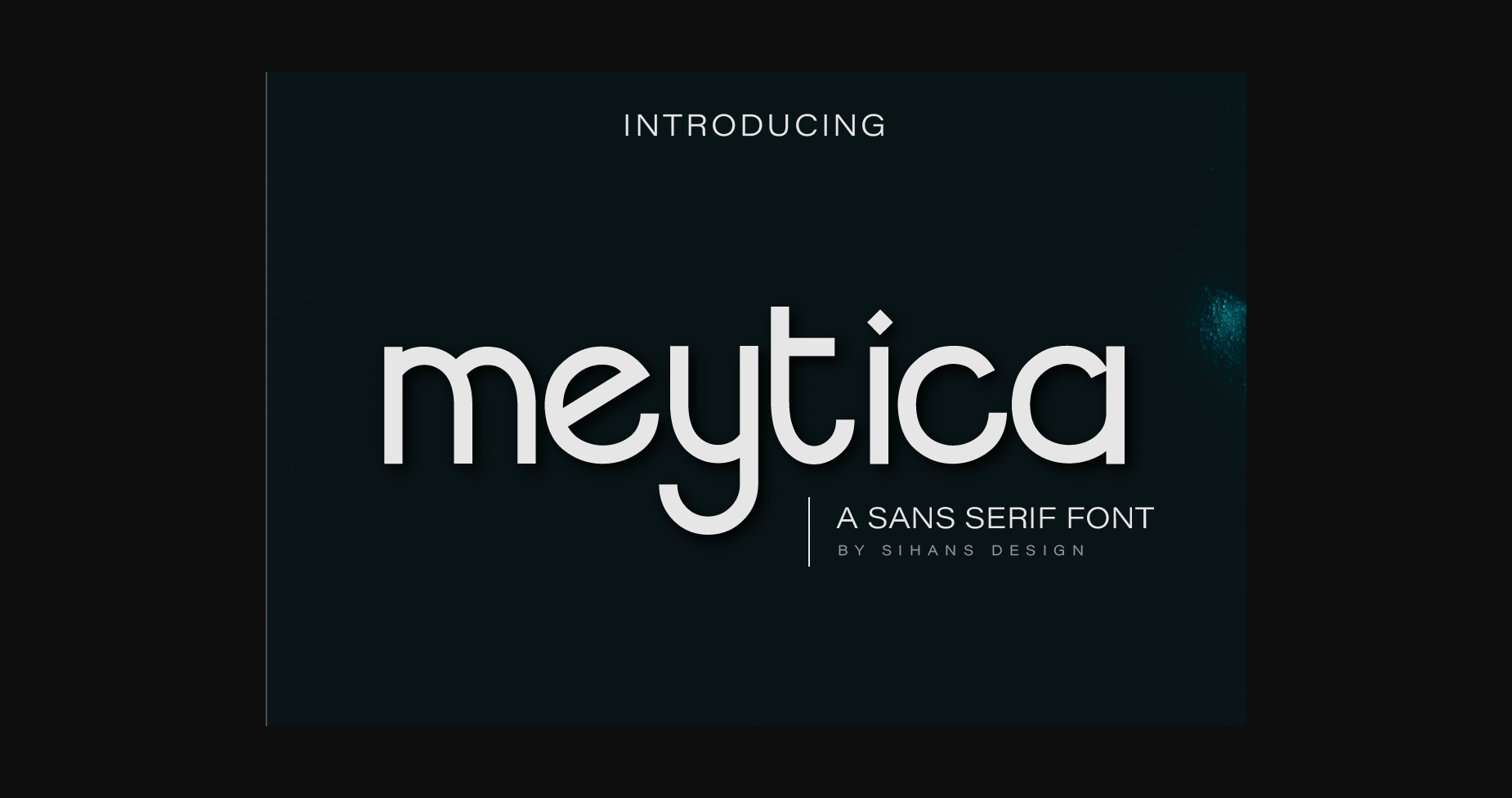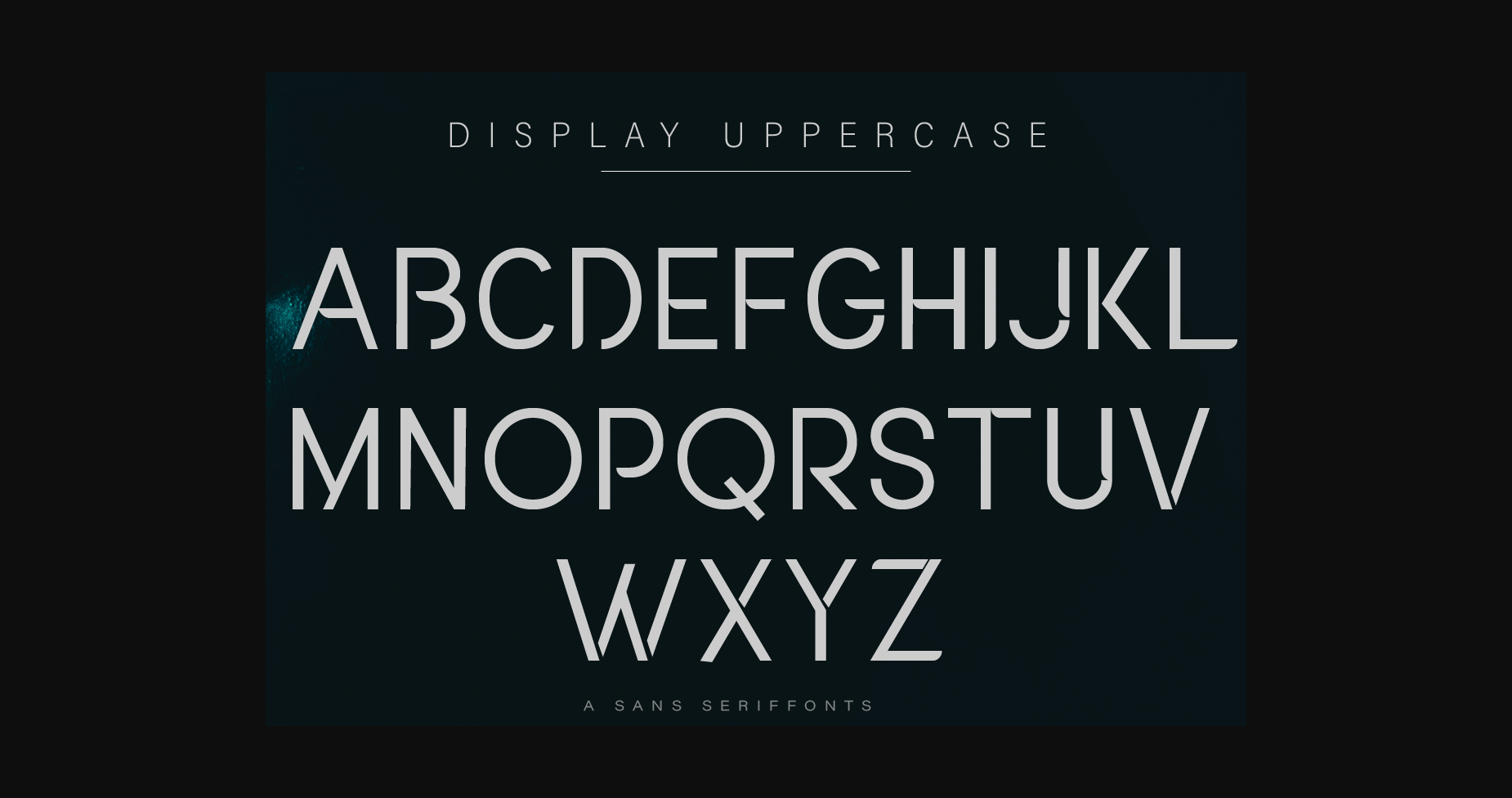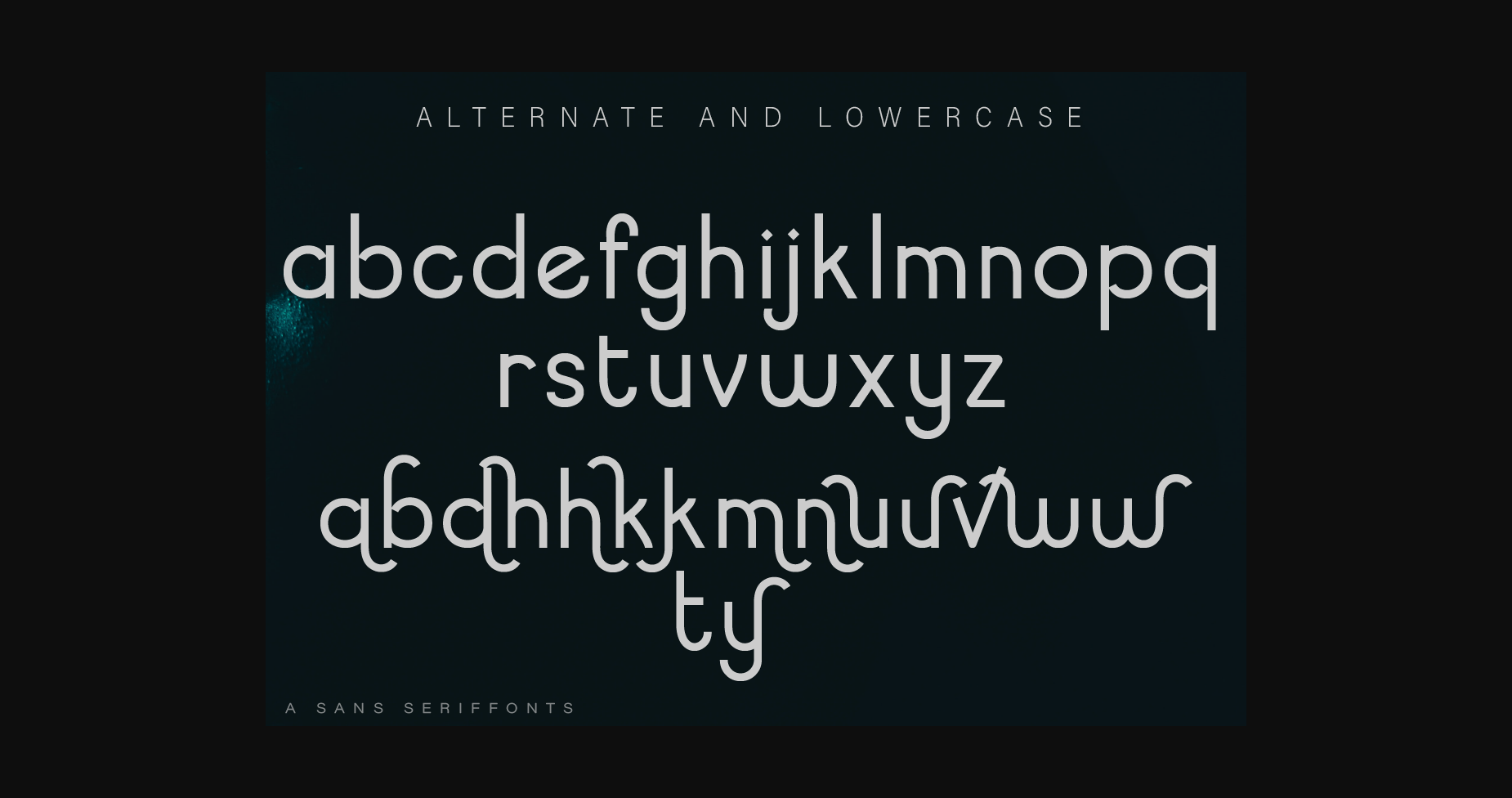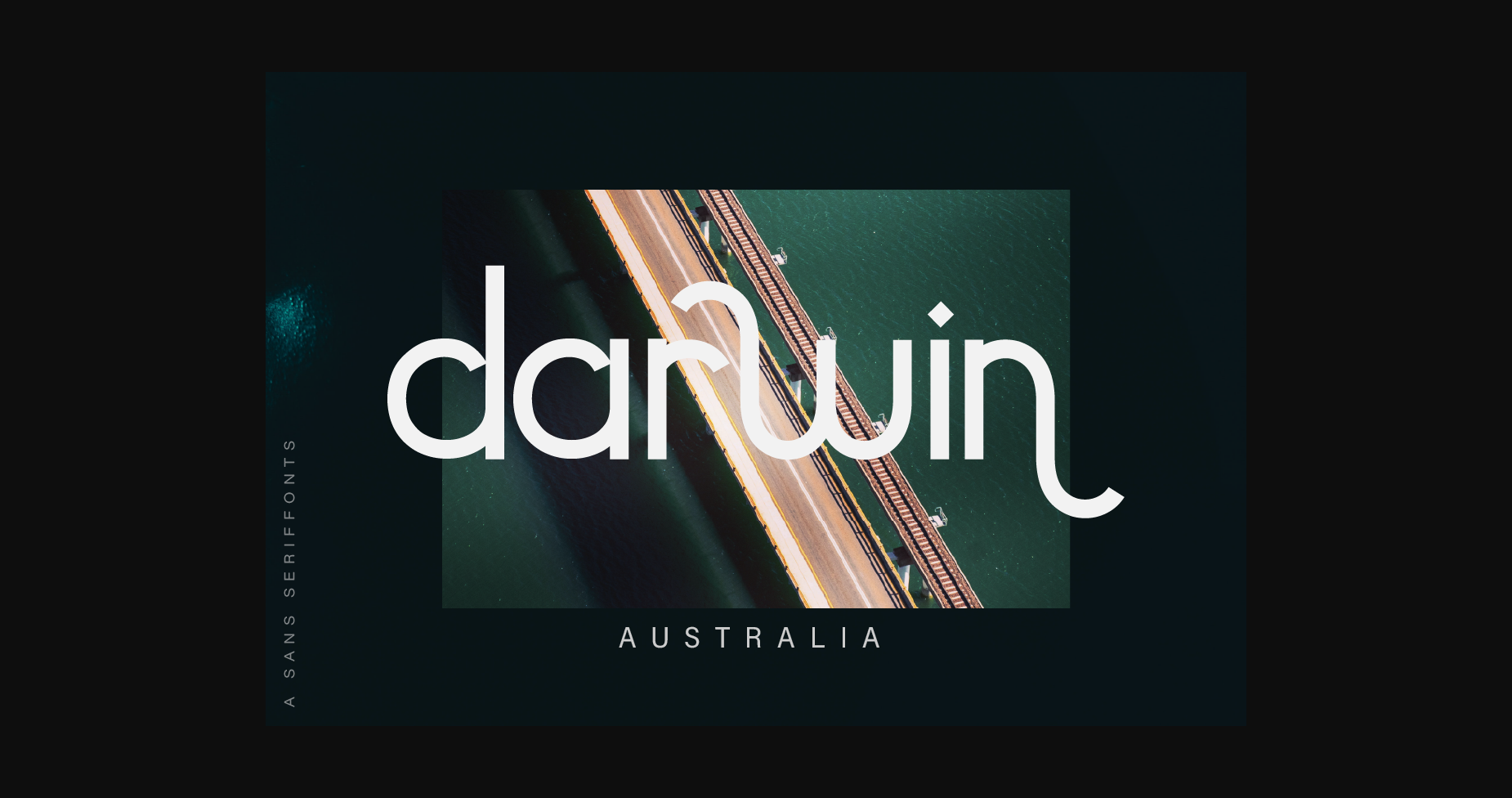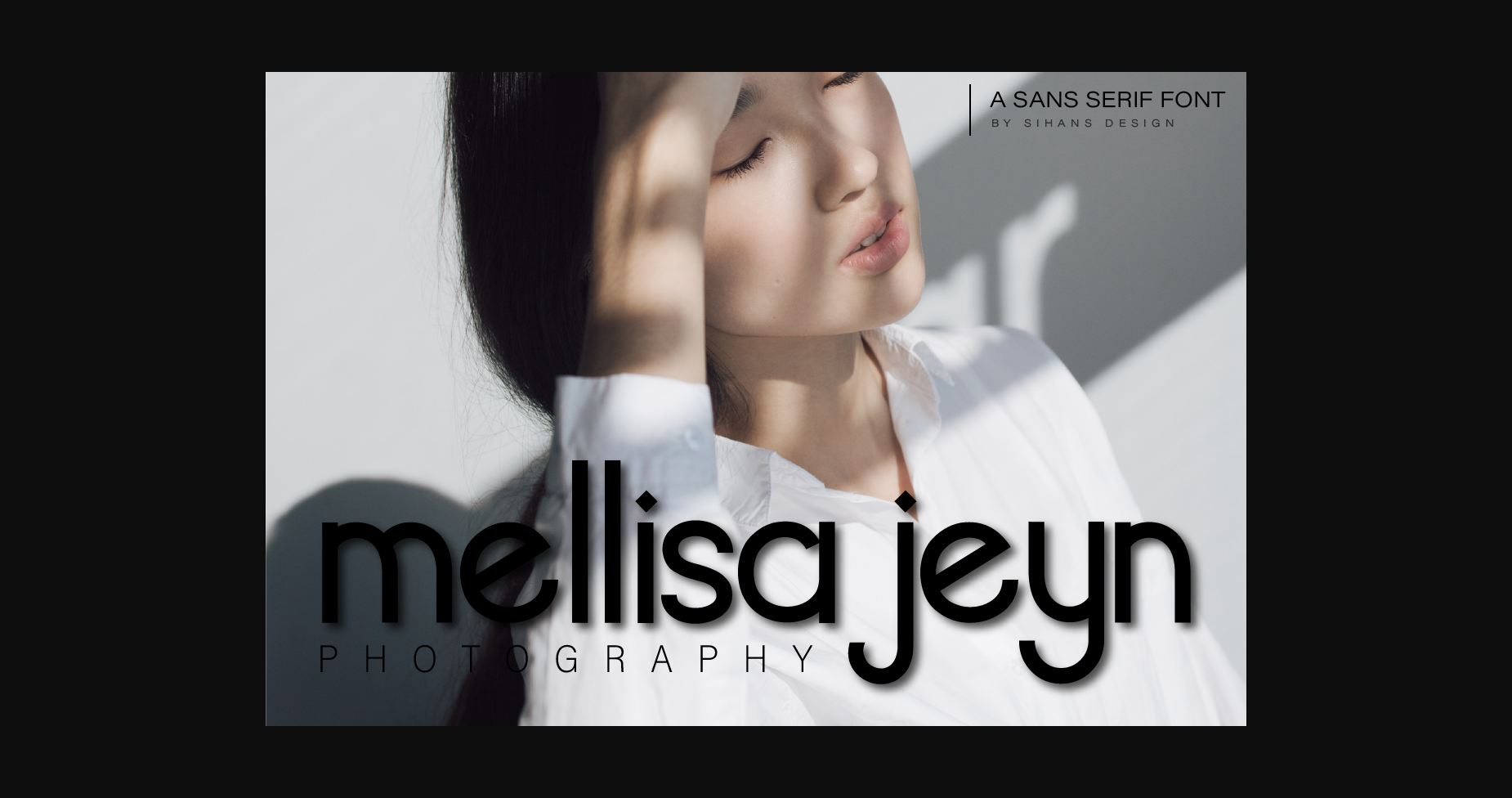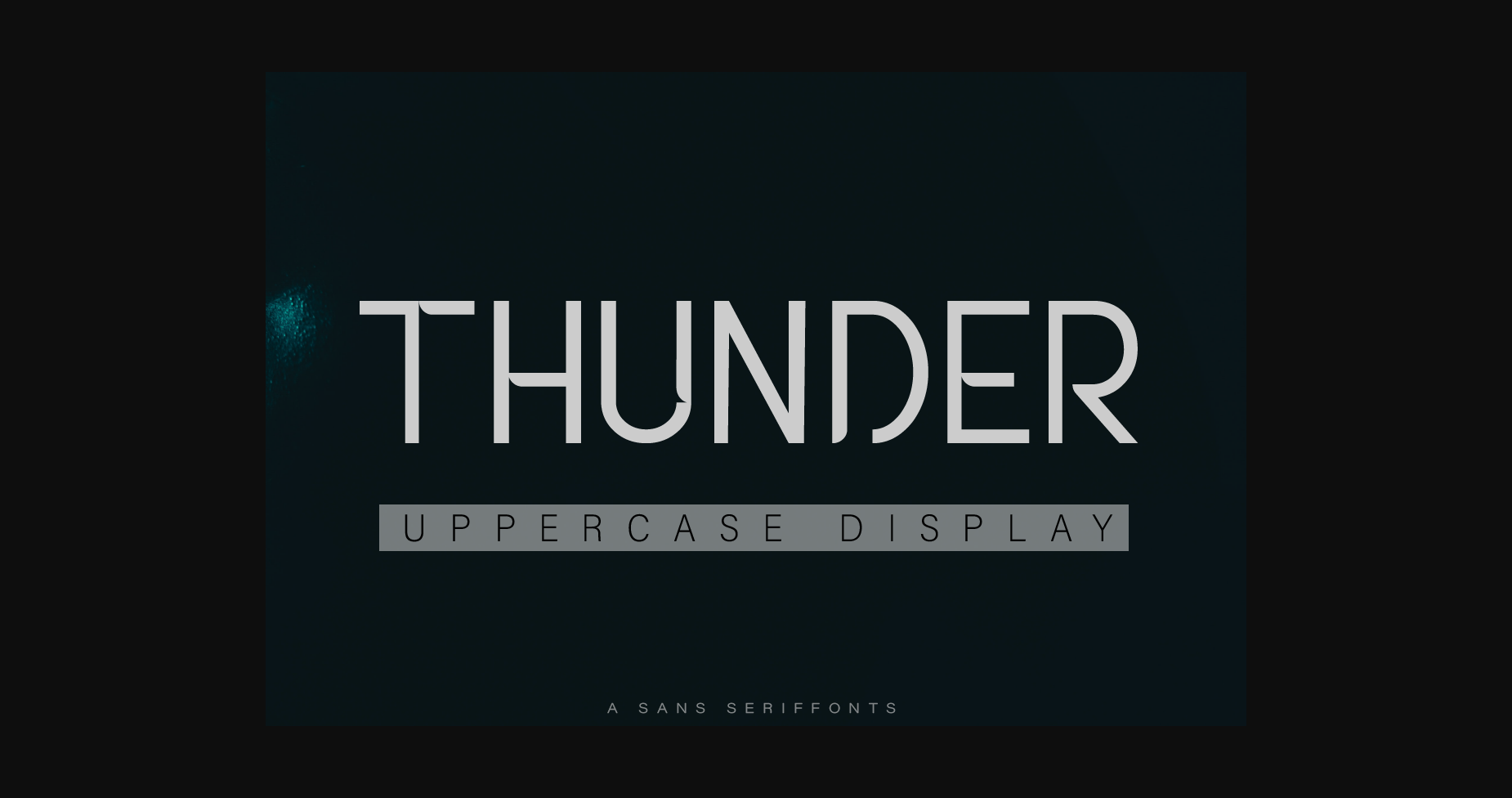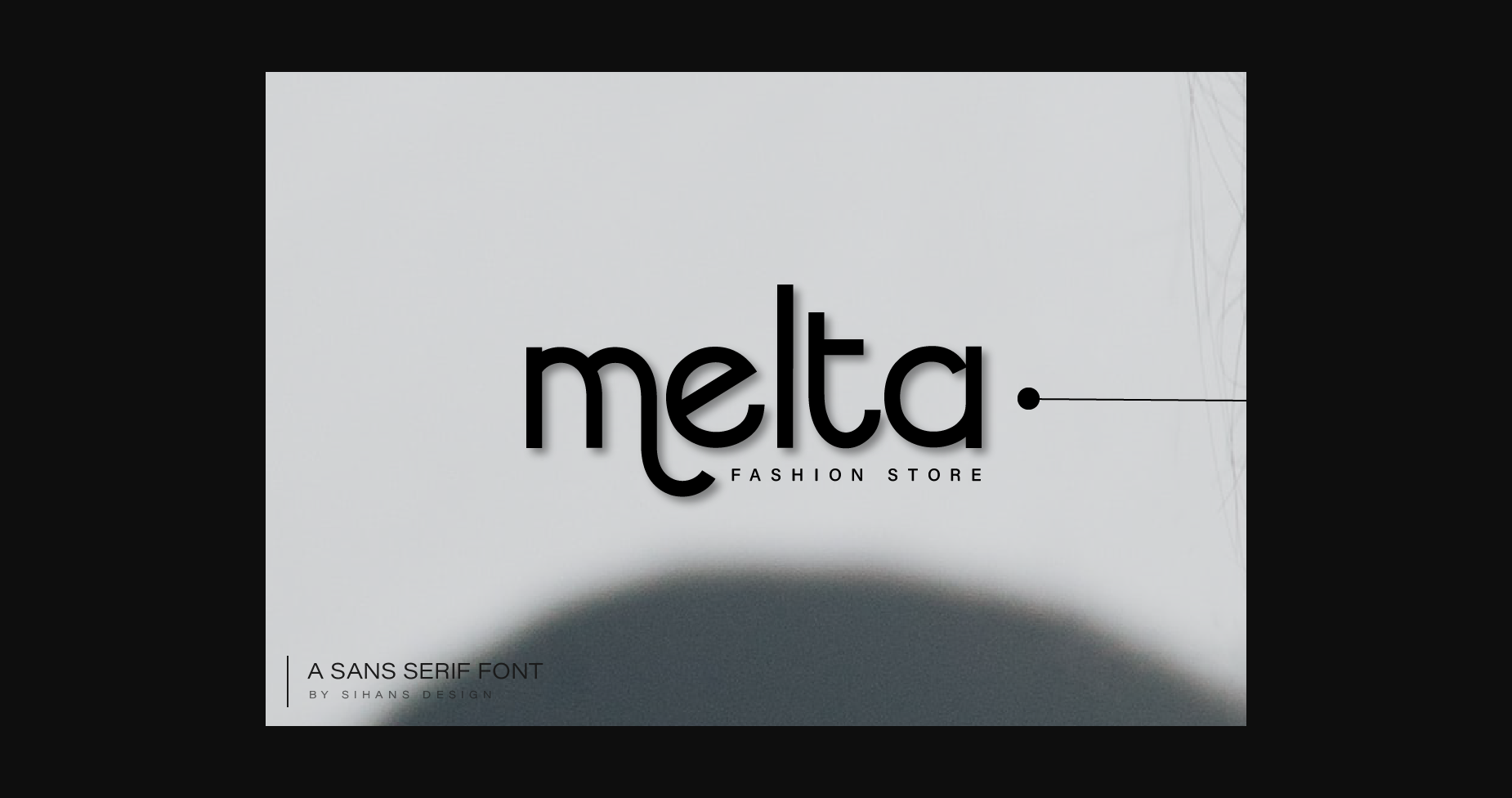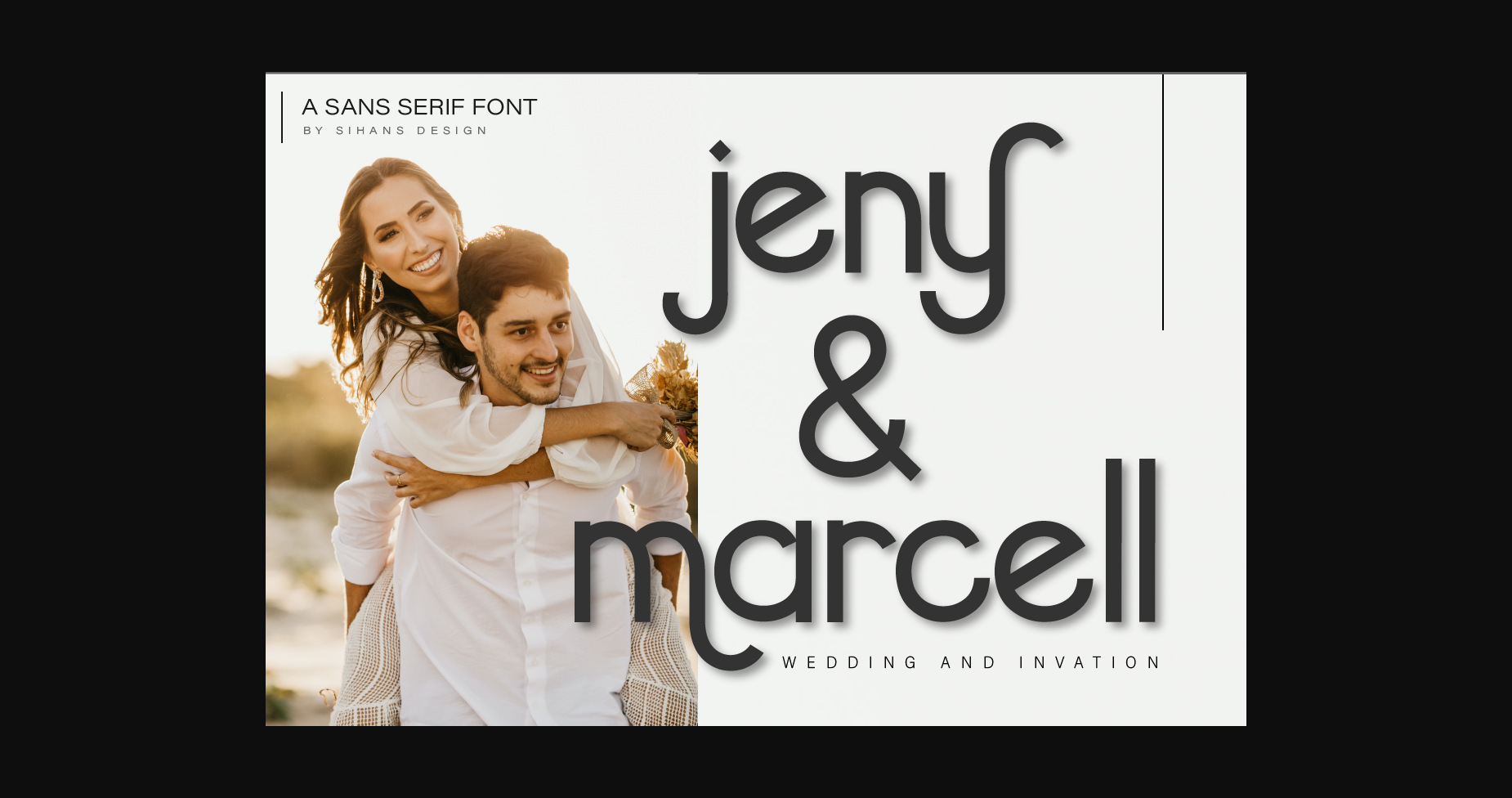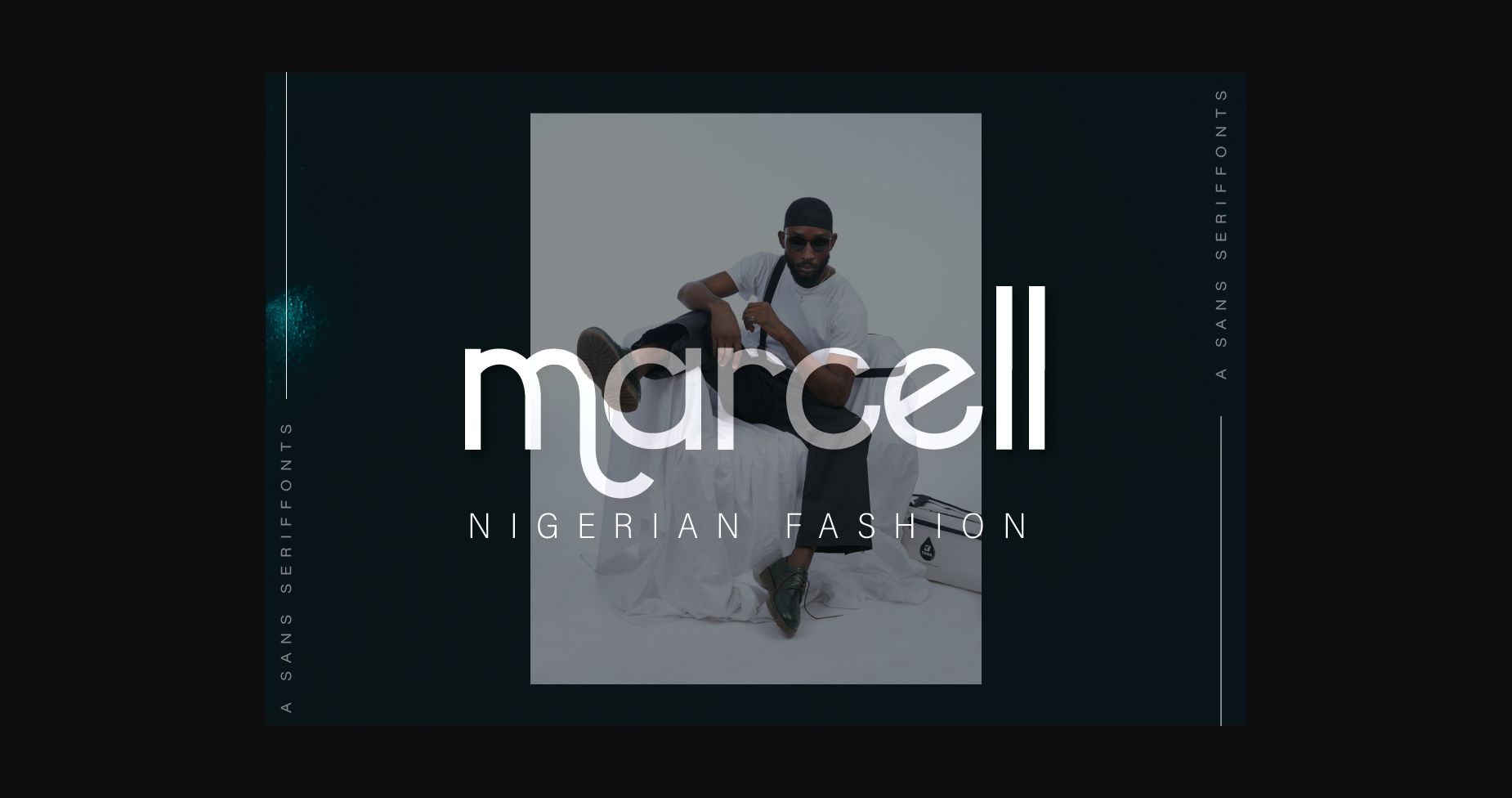
Meytica Font
About Meytica Font
Meytica is a cool and modern sans serif font. It can easily be matched to an incredibly large set of projects, so add it to your creative ideas and notice how it makes them stand out!